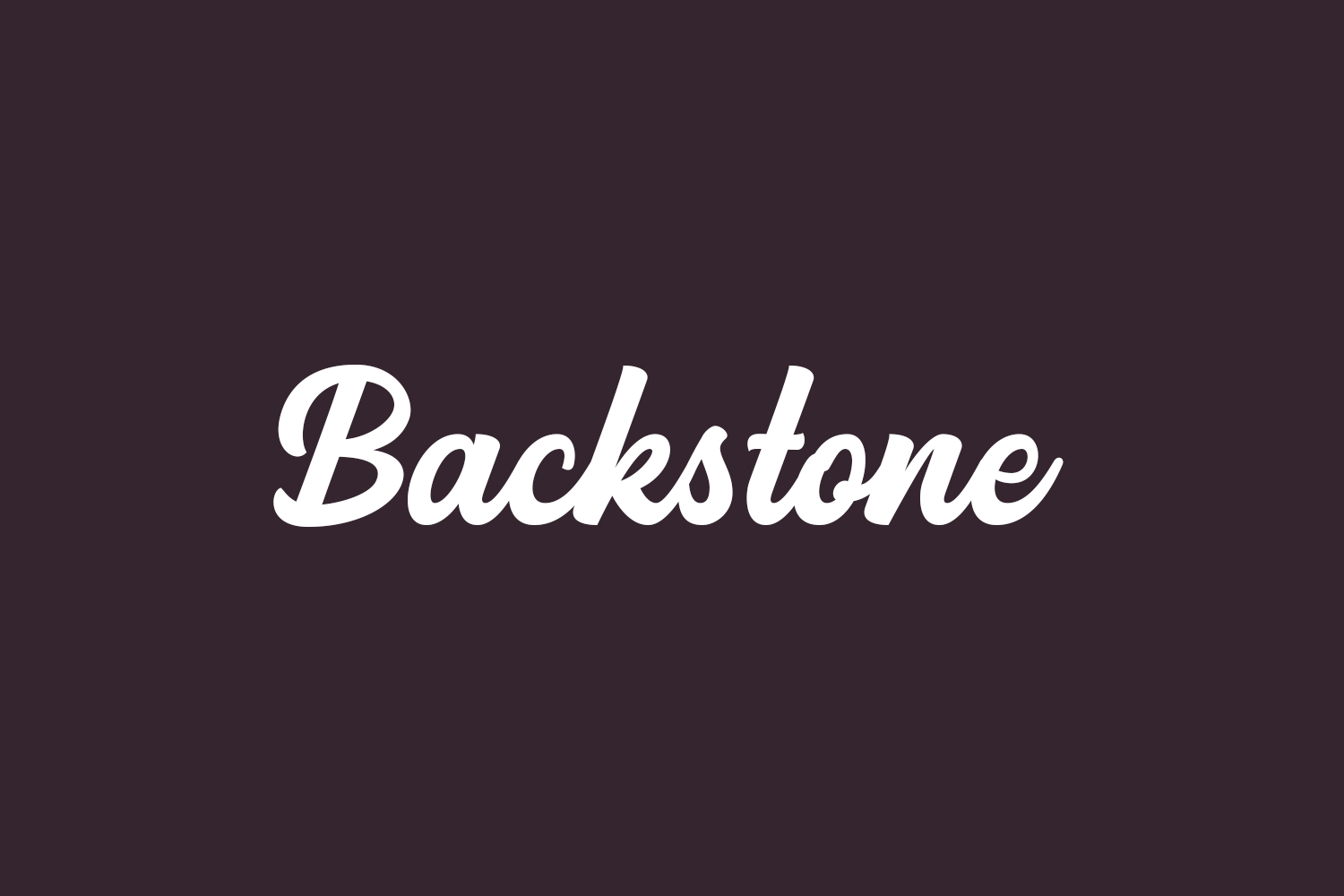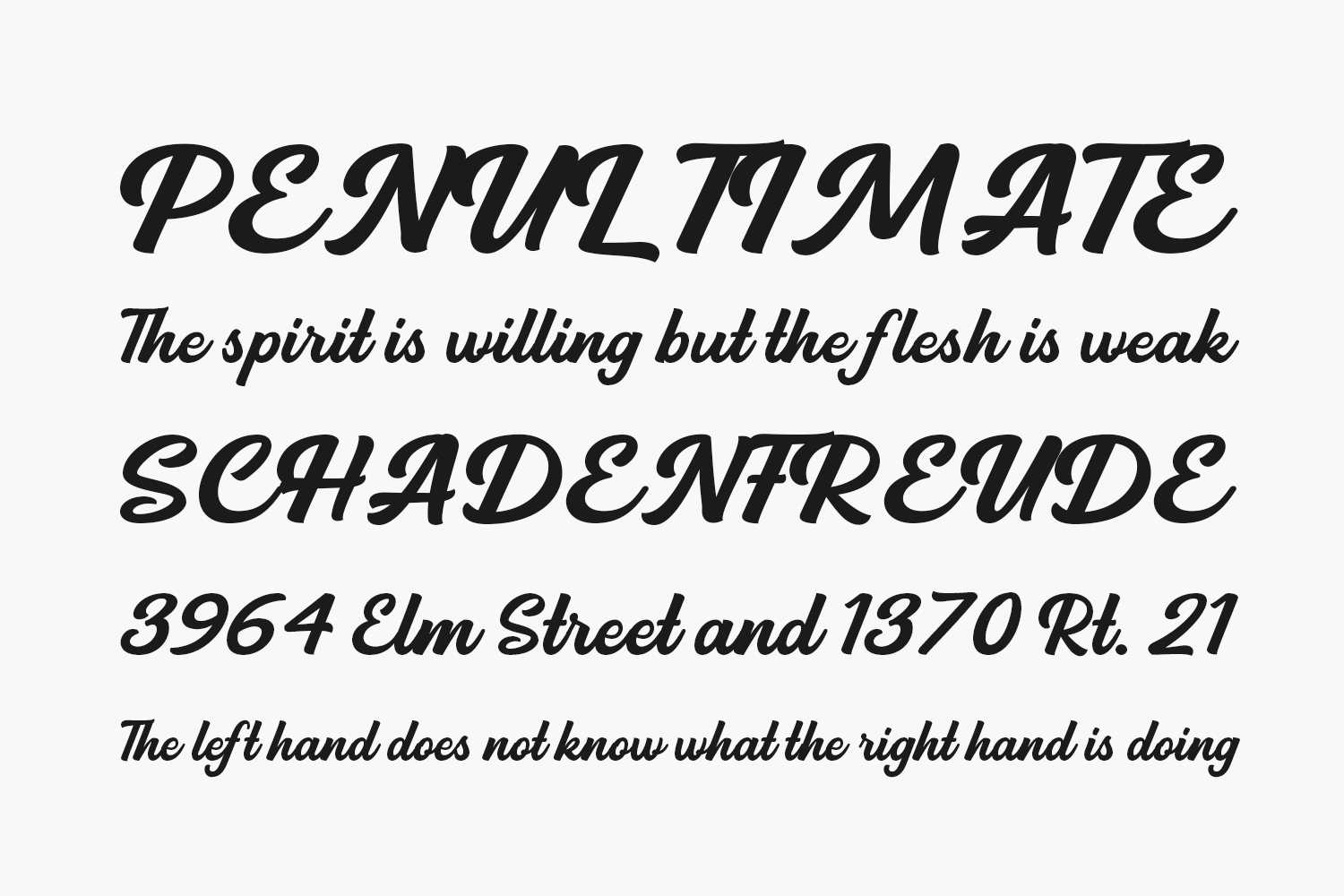
Backstone Free Font is a daring handwritten font created with brush pen strokes. This bold font will beautify and emphasize your design. Add it confidently to your projects, and you will love the results. Backstone Free Font was designed by Ahwe Project and is free for personal use only. Please purchase the full version for commercial use.